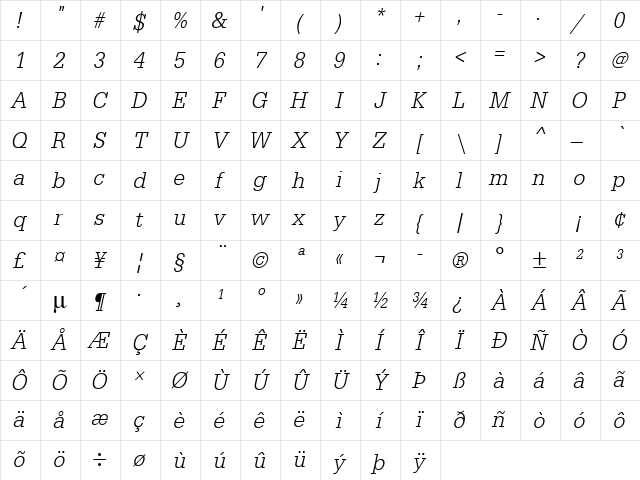
URWEgyptienneTLigExtNar Oblique
Design Context for URWEgyptienneTLigExtNar
URWEgyptienneTLigExtNar is a composed and adaptable typeface that performs quietly and consistently across a wide range of design contexts. The slanted form adds forward momentum and visual energy.
Pro Tip: Use URWEgyptienneTLigExtNar for emphasis, pull quotes, and subheadings where its slanted energy can add rhythm to the layout.